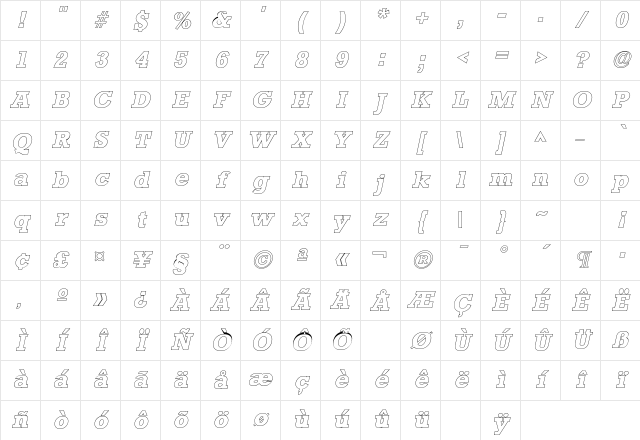
Complete Stamford Outline SF Italic glyph index. Displaying only characters natively supported by Stamford Outline SF Italic font.
Stamford Outline SF is built around its visual character rather than neutral utility - its distinctive forms are designed to make an impression at display sizes. The slanted form adds forward momentum and visual energy.
Font Pairing: Pair with a clean neutral sans-serif for body copy to let Stamford Outline SF's character lead without overwhelming the composition.
Pro Tip: Use Stamford Outline SF exclusively at display sizes - it was designed to be seen, not read at length. Let a neutral companion handle body copy.